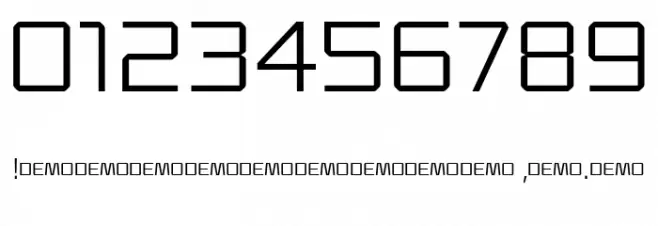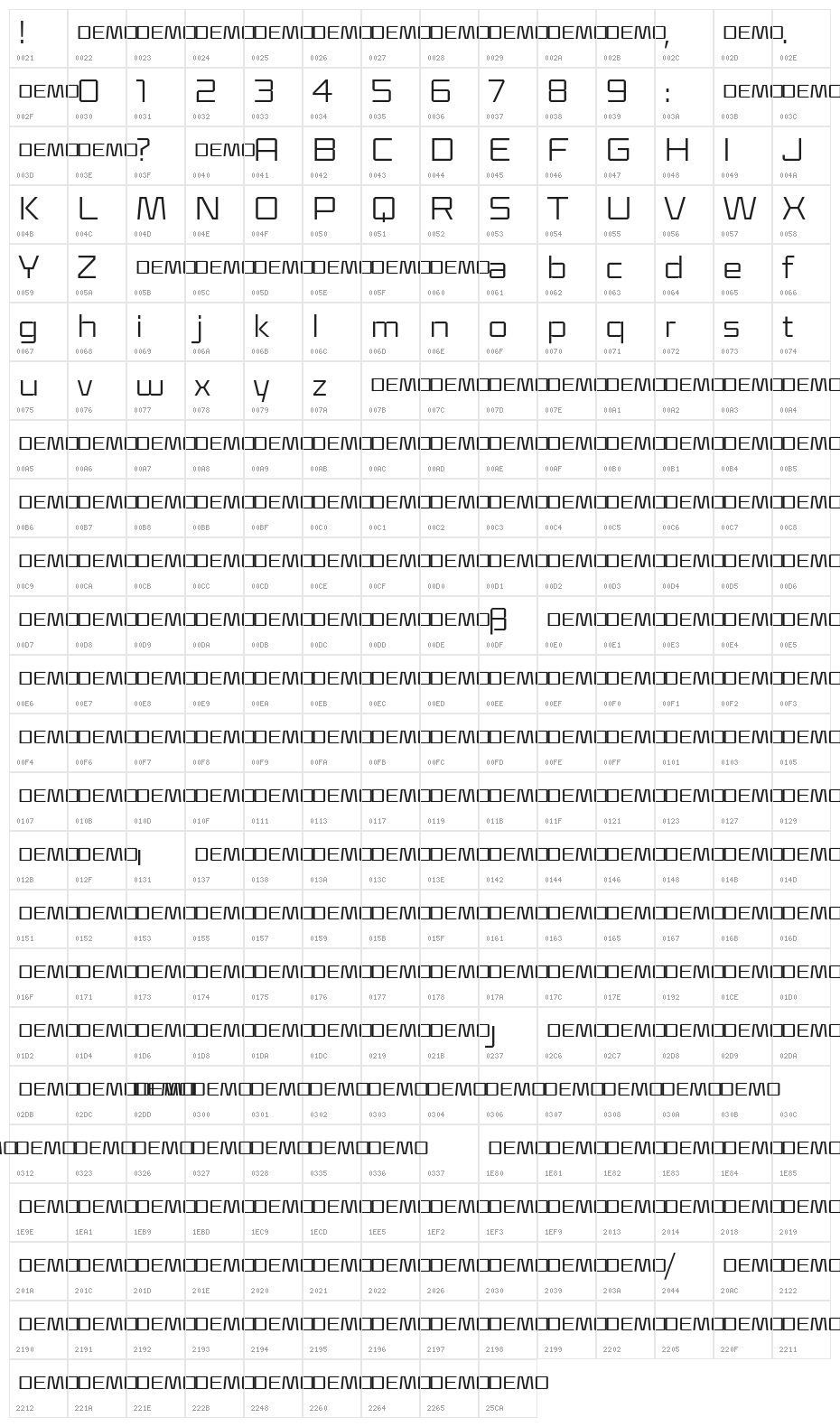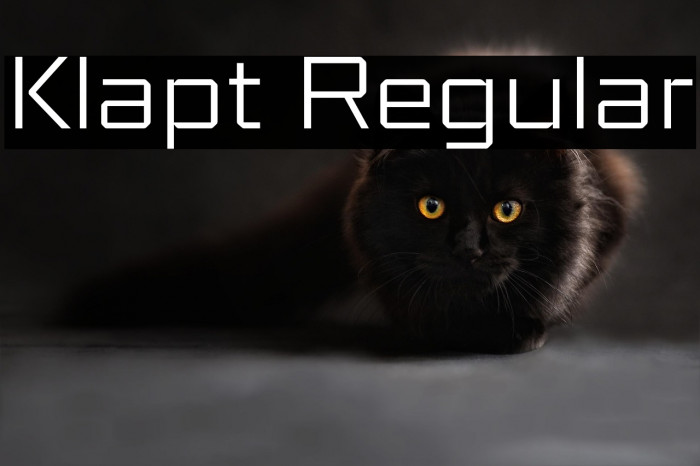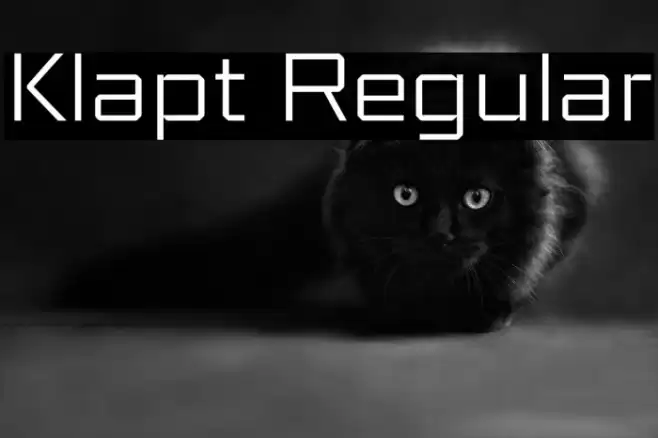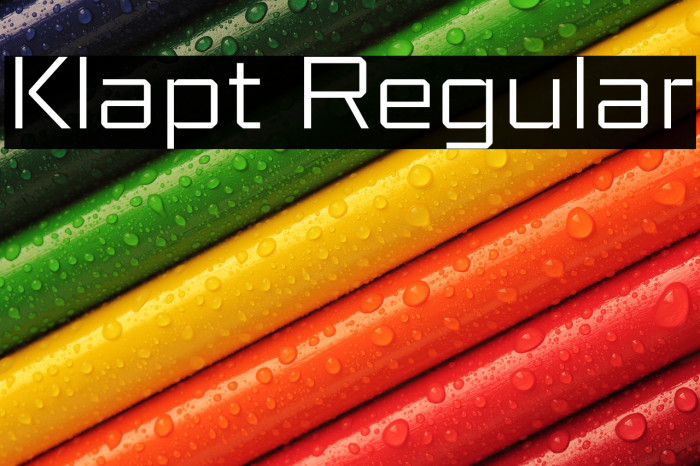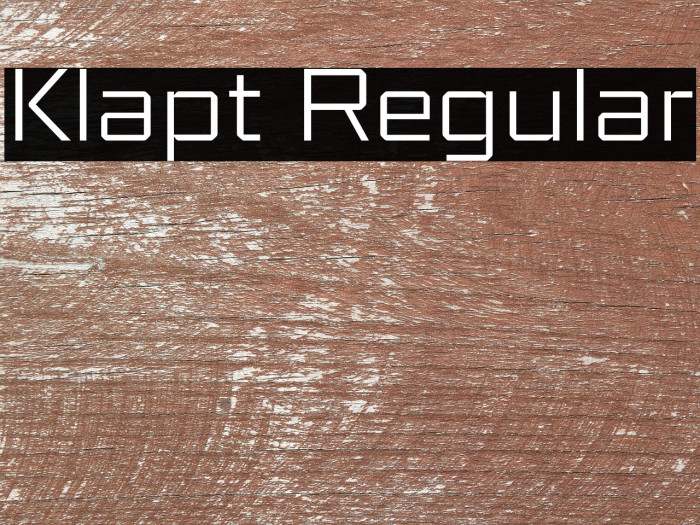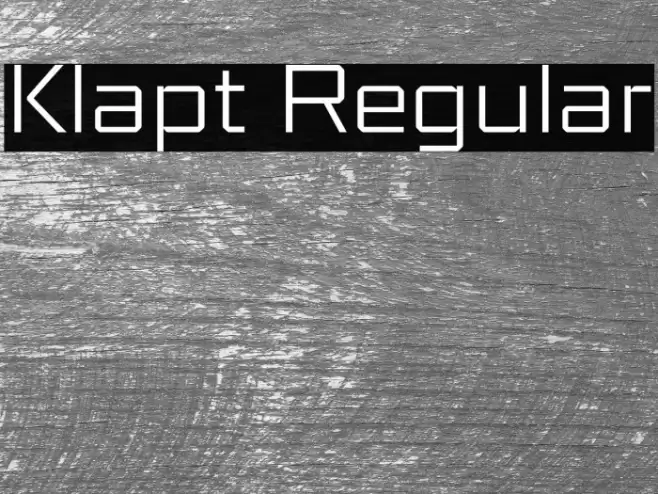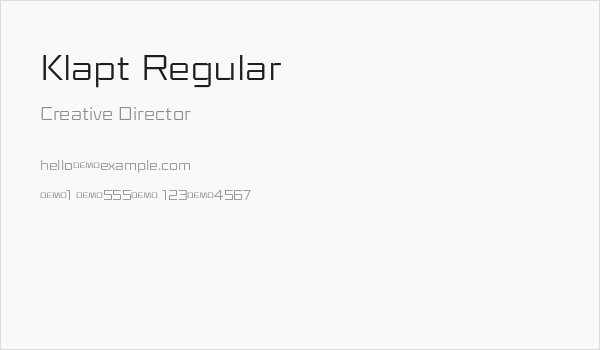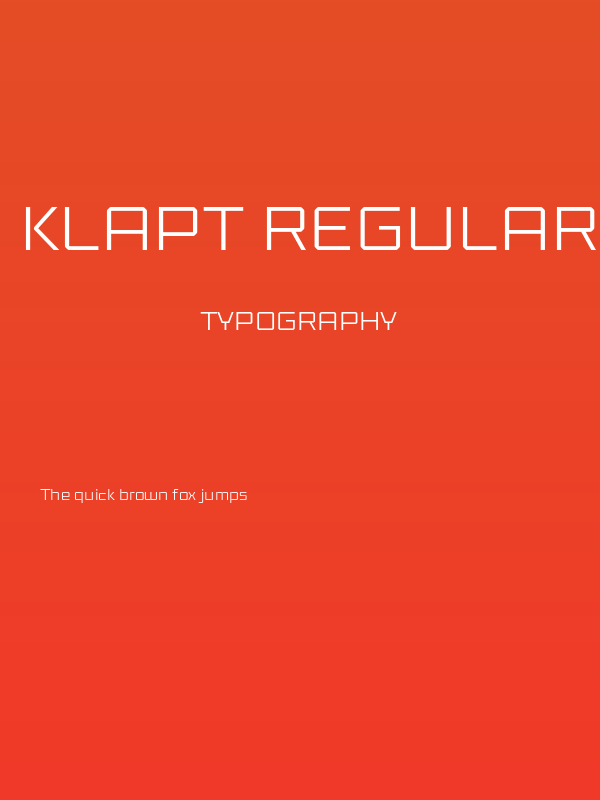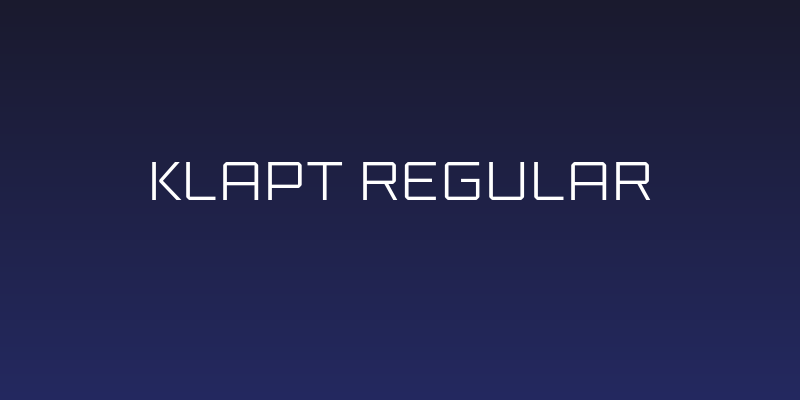
Klapt Regular Font
Klapt Regular Description
This font features a modern, geometric design with clean lines and a structured appearance. The characters are uniform and consistent, with a slight angularity that adds a contemporary edge. The uppercase letters are bold and impactful, while the lowercase letters maintain a balanced and harmonious look. The numerals are clear and easy to read, making them suitable for various applications. The font's overall style is sleek and minimalistic, ideal for projects that require a modern and professional aesthetic.
| Proposed Projects | Ideal for tech branding, modern web design, digital interfaces, and corporate presentations. |